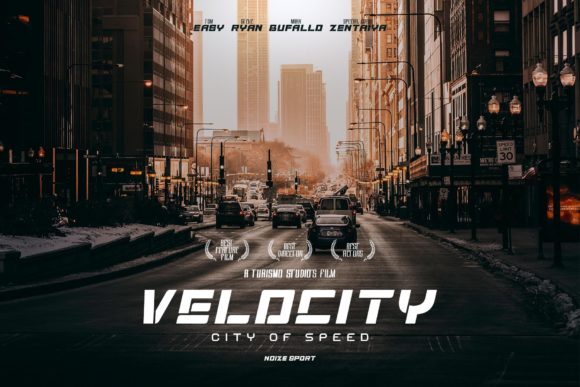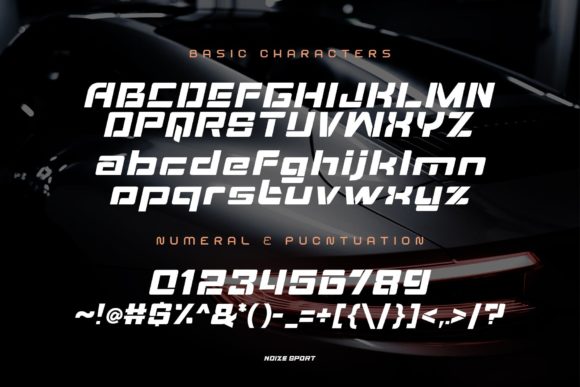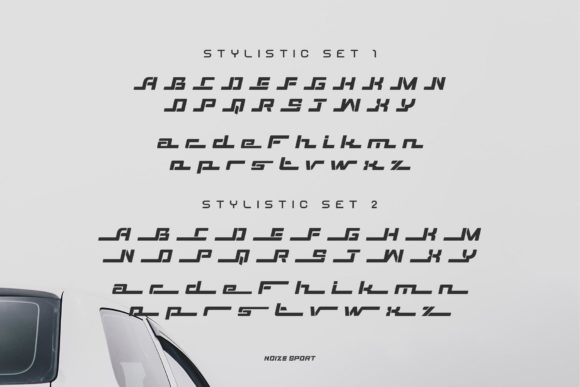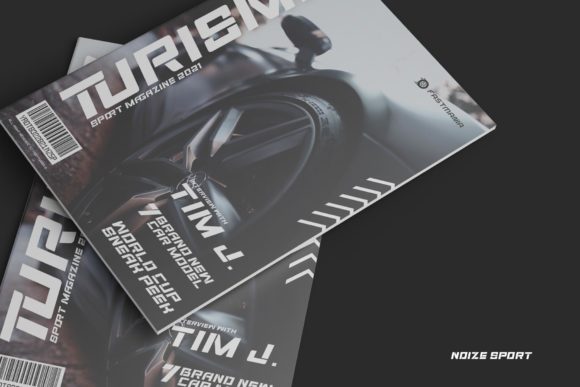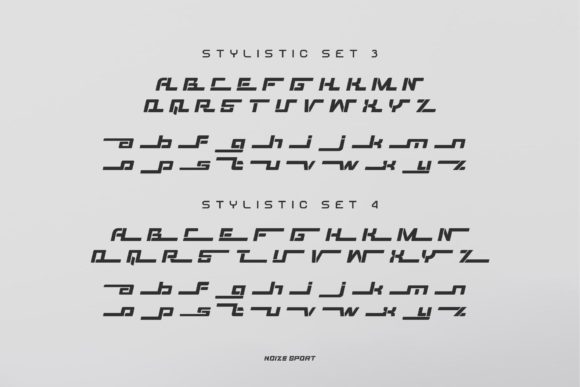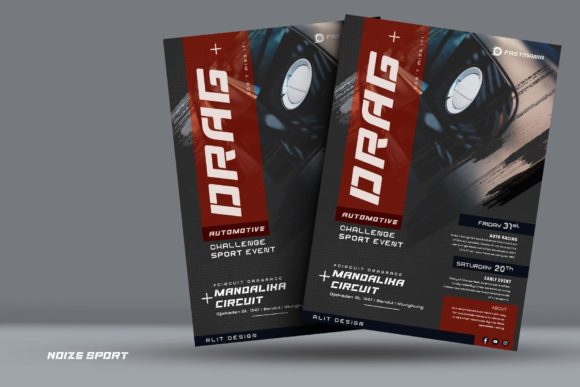
Introduction to Noize Sport Font
Have you ever been at the finish line of a marathon, feeling the rush of adrenaline as the crowd cheers and the checkered flag waves? Or maybe you’re a racing enthusiast who’s spent countless hours tweaking the engine of your prized car? Whatever your passion, there’s a universal language that speaks to us all: speed.
For designers, the thrill of creating a high-quality visual representation of that speed is what drives us. And that’s where Noize Sport Font comes in – a display font that embodies the raw energy and power of the sports and racing industry. With its bold and strong impression, this font is the perfect design resource for making logo designs, car stickers, and racing event titles that truly capture the essence of speed.
What makes Noize Sport Font truly valuable is its PUA encoding, allowing designers to access all of its glyphs and swashes with ease, making it a free download that’s perfect for any creative project.
Key Features of Noize Sport Font
- High-quality design: The Noize Sport Font is a well-crafted, professional font ideal for creative projects that require a unique and modern look.
- Transparent background: This font features a transparent background, making it perfect for use on various backgrounds and design elements.
- High-resolution design: The font is designed at a high resolution, ensuring crisp and clear text even at larger sizes.
- Unique character set: The Noize Sport Font features a unique character set, including a range of symbols and icons, making it ideal for creative projects that require a distinctive look.
- Perfect for sports and action themes: The font’s design and style make it perfect for use in sports and action-themed projects, such as video games, movie titles, and sports branding.
Honest Review: Noize Sport Font
I recently stumbled upon the Noize Sport Font while searching for a high-quality design resource for my latest creative project. As a designer, I’m always on the lookout for unique and versatile fonts that can elevate my work.
The Noize Sport Font definitely delivers on that front. Here are some things that work well: ✨ It’s highly customizable, making it perfect for creating dynamic and attention-grabbing headlines. ✨ The font is also incredibly versatile, with a wide range of styles and weights available. ✨ The transparent background makes it easy to layer over images and graphics. And, as a bonus, it’s free to download, making it a valuable addition to any designer’s toolkit.
While the Noize Sport Font is an excellent resource, there are a few limitations to keep in mind: ⚠️ The font may not be suitable for small-scale designs, as the characters can appear pixelated. ⚠️ Additionally, the font’s unique style may not appeal to all audiences, so it’s essential to consider your target demographic before using it.
Overall, I’m thoroughly impressed with the Noize Sport Font. It’s a fantastic design resource that’s perfect for creative projects that require a bold and attention-grabbing look. I highly recommend giving it a try, especially if you’re working on a project that requires a high level of visual impact.
- Wide range of styles and weights
Tips for Getting the Most Out of Noize Sport Font
To get the most out of the Noize Sport Font, use it on a transparent background to create a modern and sleek look. You can also experiment with different font sizes, colors, and combinations to create unique designs.
The Noize Sport Font is ideal for sports-related designs, such as team logos, jerseys, and scoreboards. It’s also suitable for fitness and wellness projects, like workout plans and healthy recipes.
Is the Noize Sport Font suitable for designs with transparent backgrounds?
Yes, the Noize Sport Font is designed to be used with transparent backgrounds, making it perfect for creative projects that require a clean and modern look. The font’s transparent background allows it to blend seamlessly with other design elements, creating a visually appealing and professional design.